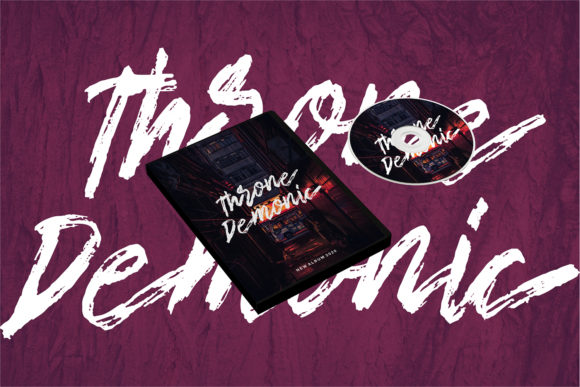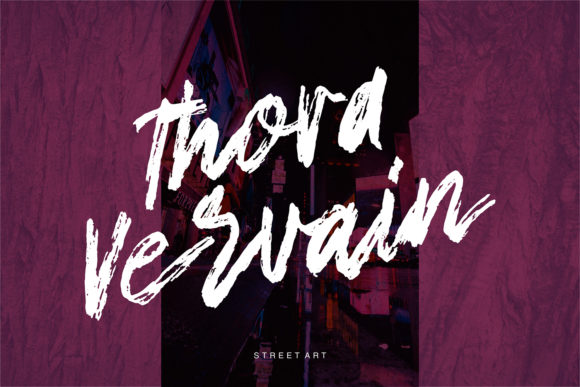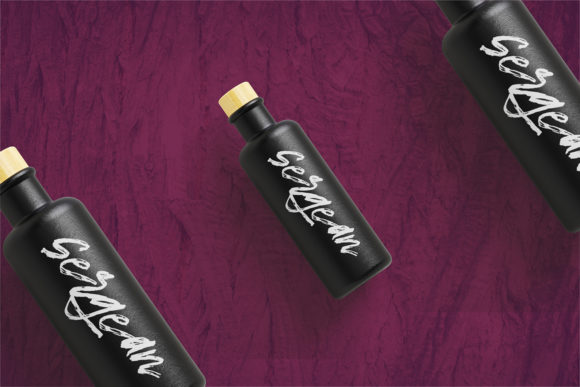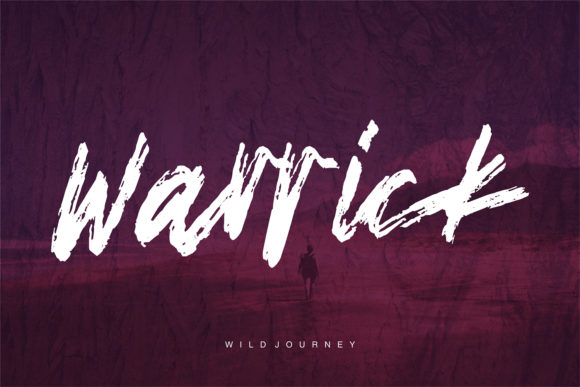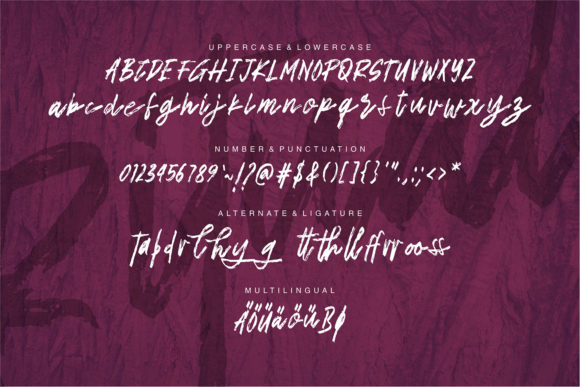
Introduction to Ritual Font
Ritual is a bold and dramatic looking display font.
Rough textured and unique, this font will make each of your designs stand out .